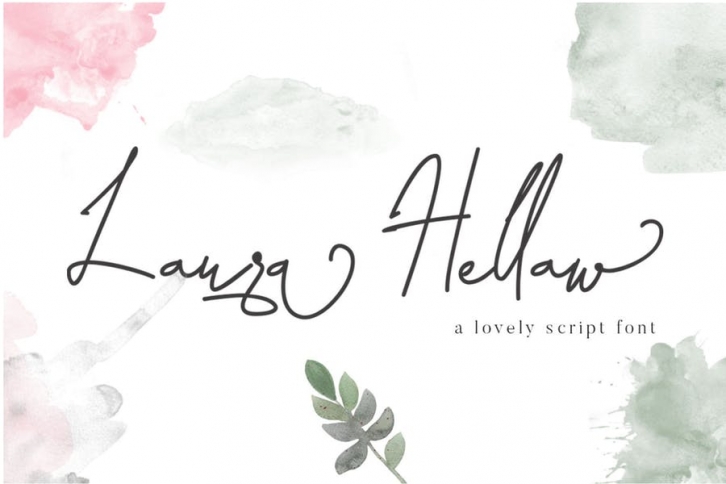
Laura Hellaw Lovely Script Font Download
Laura Hellaw a lovely script font, This is perfect for invitations, signatures, blogs, social media, business cards, product brands, etc.
Creative Signature has style standard, Alternate Stylistic and ligatures. and includes uppercase and lowercase letters, numbers and punctuation serta alternate